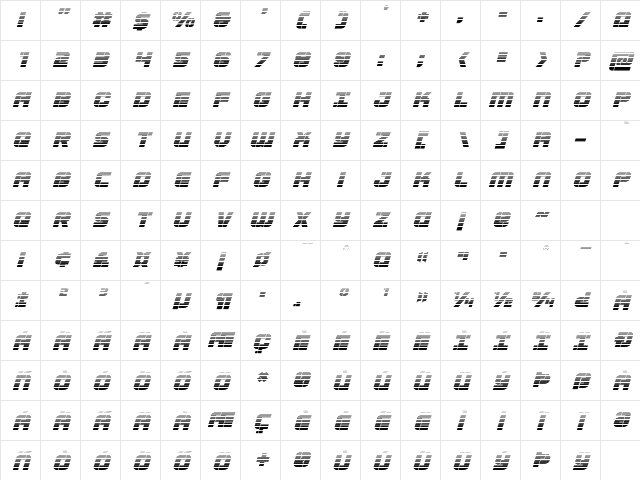
Complete Super Submarine Gradient Italic Italic glyph index. Displaying only characters natively supported by Super Submarine Gradient Italic Italic font.
Super Submarine Gradient Italic is a composed and adaptable typeface that performs quietly and consistently across a wide range of design contexts. The slanted form adds forward momentum and visual energy.